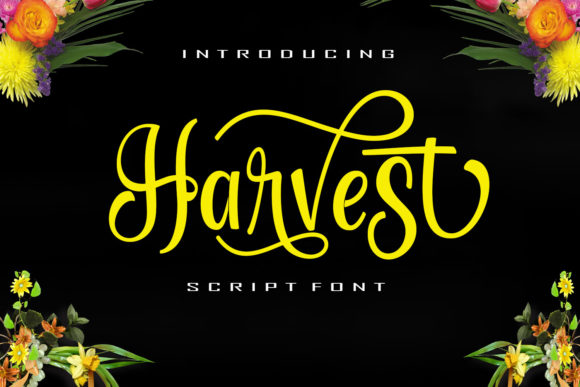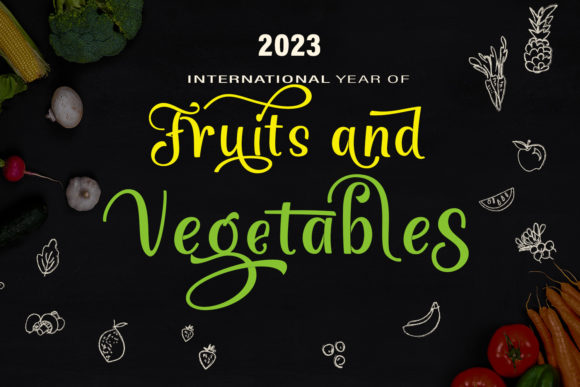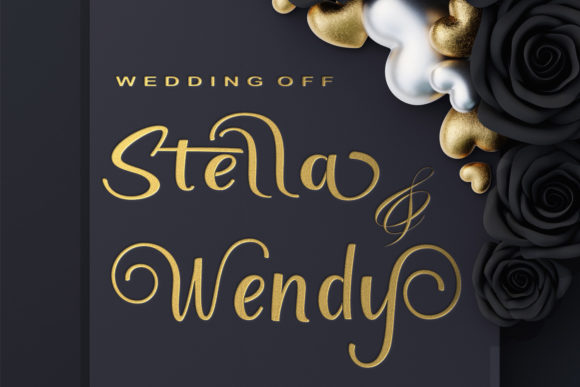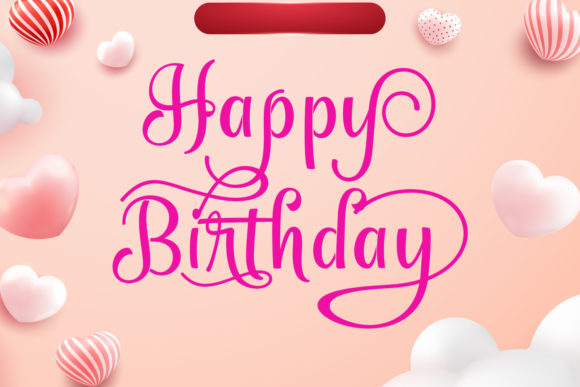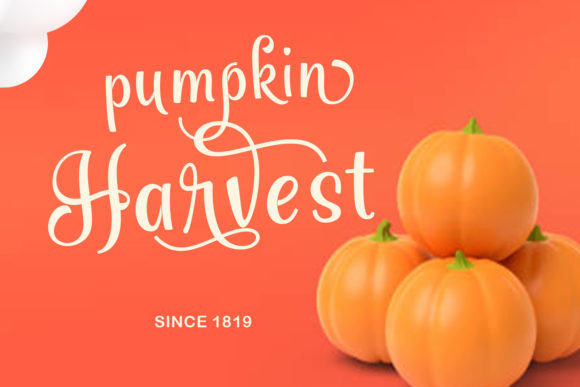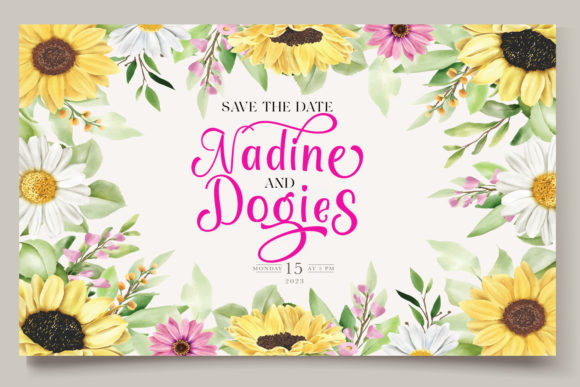
Harvest Font
About Harvest Font
Harvest Script is a soft and sweet calligraphic typeface with characters dancing along the baseline. It has casual and elegant characters that can be used for logos, wedding invitations, headings, t-shirts, letterheads, signage, labels, news, posters, badges, etc.